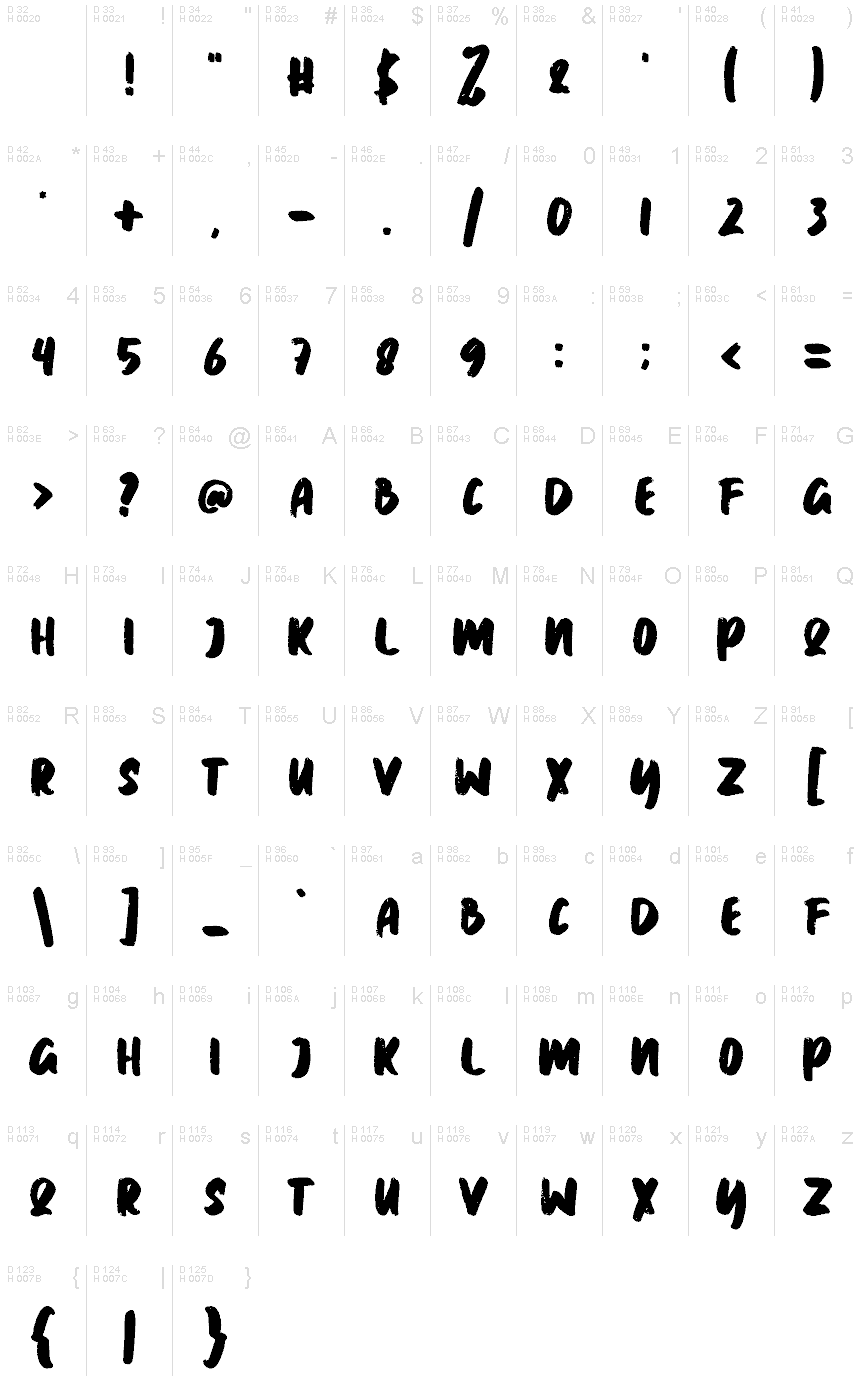
Maxnos
Maxnos font by Skiiller Studio is a bold brush font with grungy, textured, and distressed features. It embraces a modern street style brought by its unique letter shapes and natural aesthetics. It brings strength, creativity, and raw appeal to any platform it gets used on.